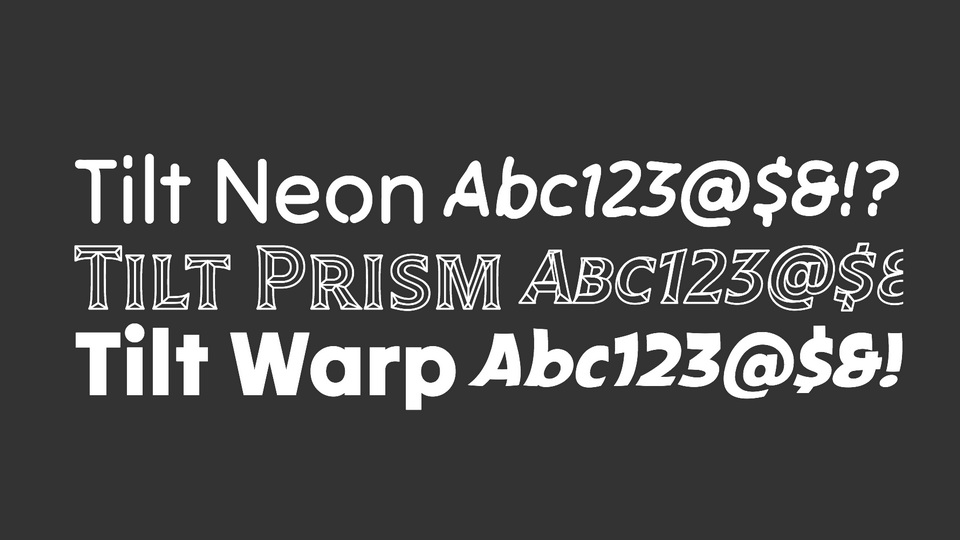
Download Tilt typeface, a family of type inspired by the dimensional lettering found in storefront signage. It’s comprised of three related variable font styles: Neon, Prism and Warp.
Designer: Andy Clymer